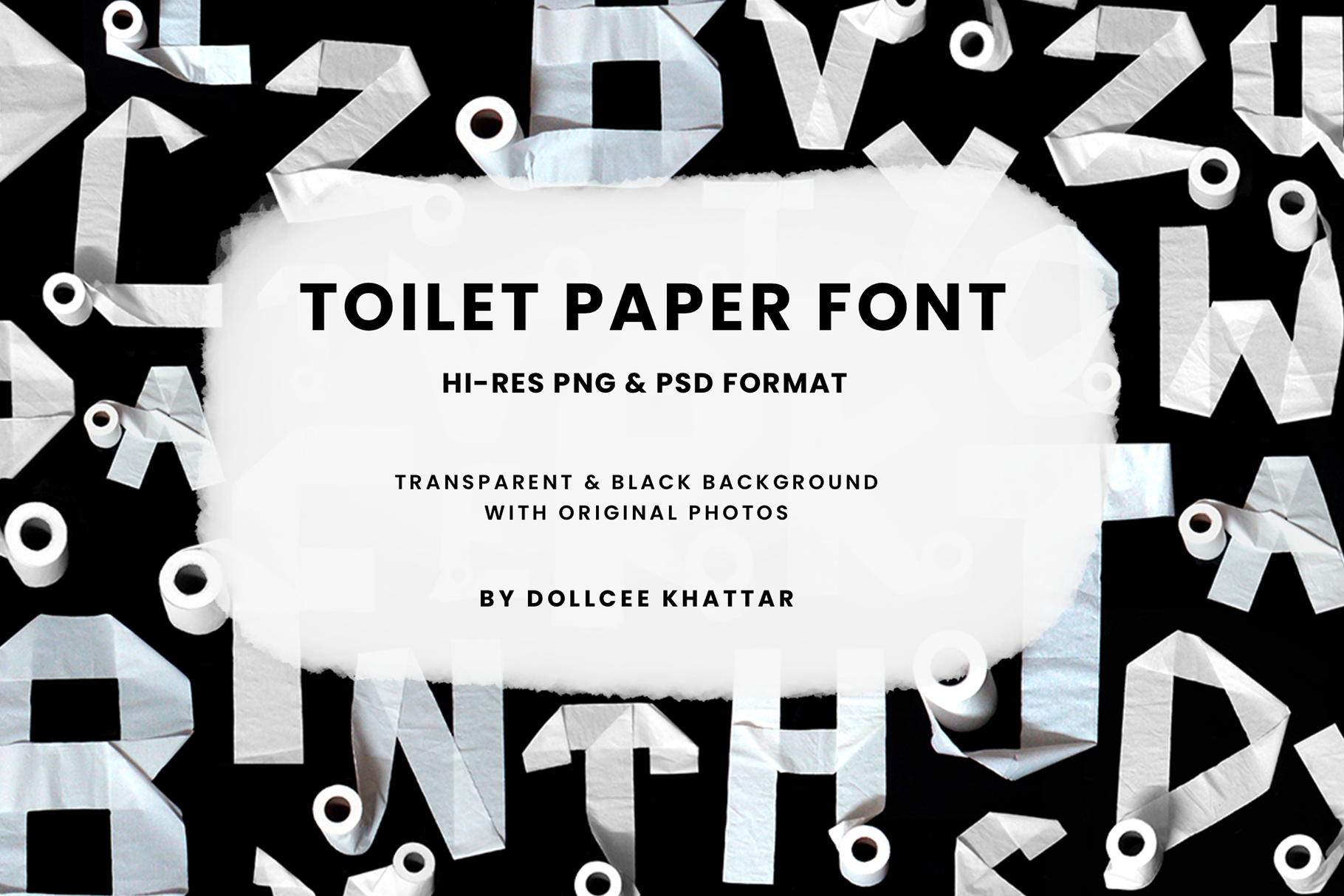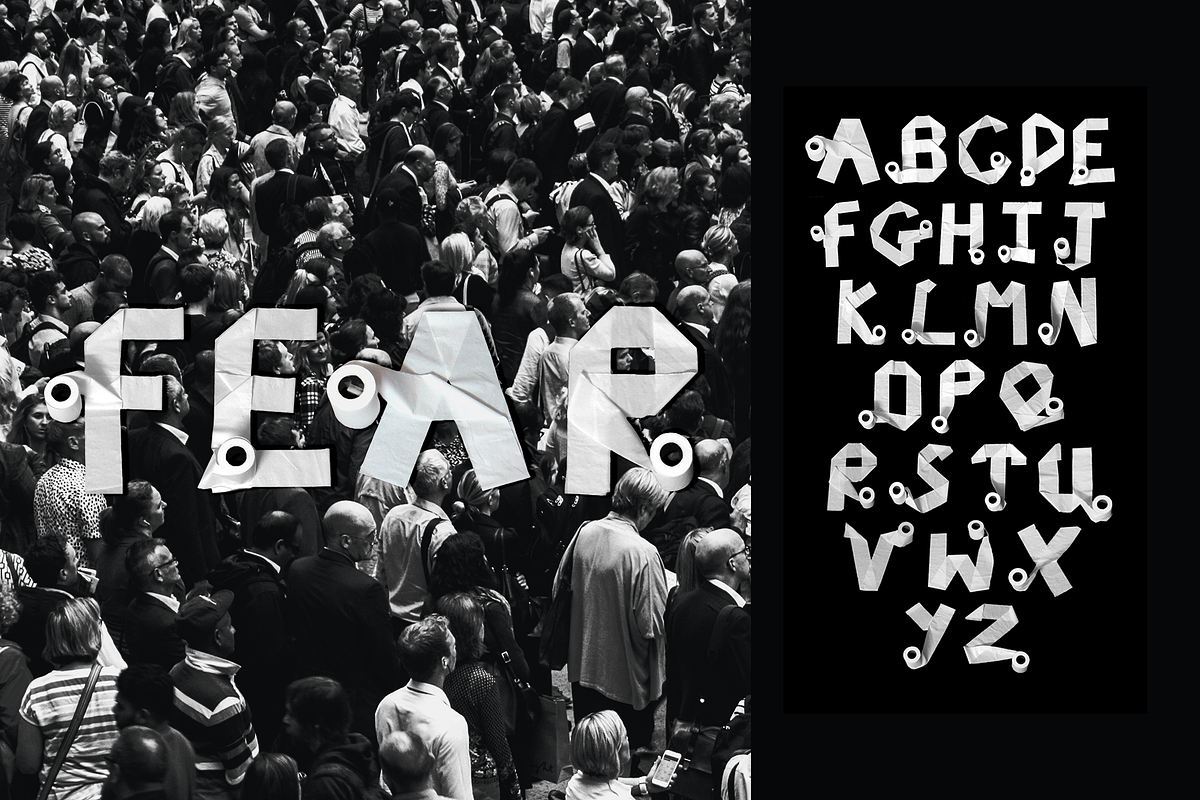
The Toilet Paper Font
Introducing the long-awaited masterpiece - a captivating collection of high-definition images, each meticulously crafted to portray every letter of the alphabet using the unexpected medium of toilet paper